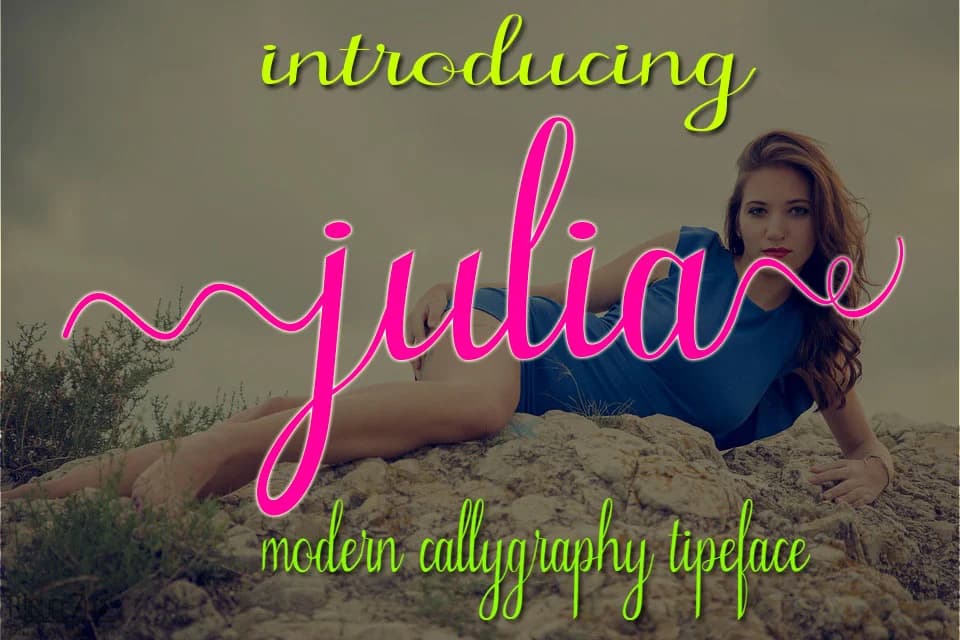
Julia by maydhen studio is a flowing calligraphic typeface crafted through hand-painted techniques that infuse genuine artisanal character into contemporary design work. This elegant script font reimagines traditional calligraphy for modern creative applications, striking a balance between refined sophistication and organic warmth that appeals to designers seeking authenticity in their visual communication. Wedding invitation suites, luxury cosmetics branding, boutique fashion packaging, and personalized stationery designs all showcase what makes Julia exceptional, its remarkable ability to convey both elegance and artisanal credibility simultaneously in ways that mass-produced typefaces cannot. The font's refined stroke variations and authentic painted aesthetic translate beautifully across event signage, custom packaging for artisan goods, high-end greeting card designs, and decorative applications where personality strengthens brand presence. What truly distinguishes Julia is how each letterform carries the unmistakable quality of handwork, feeling genuinely individualized rather than mechanically reproduced. This matters deeply in contemporary design contexts, where audiences increasingly crave authentic, human-touched elements over sterile perfection. Designers appreciate Julia's versatility, it serves equally well for formal occasions and modern brand identities that prioritize warmth alongside polish. The hand-painted origin means subtle variations within each letter give your projects that coveted handcrafted authenticity. Discover Julia on Creative Fabrica and bring this hand-drawn elegance to your design work.
Julia Font is a script font that shines as a display or heading face. Pair it with a clean sans-serif or serif font for body text β the contrast creates a clear hierarchy while the two styles stay balanced and easy to read.